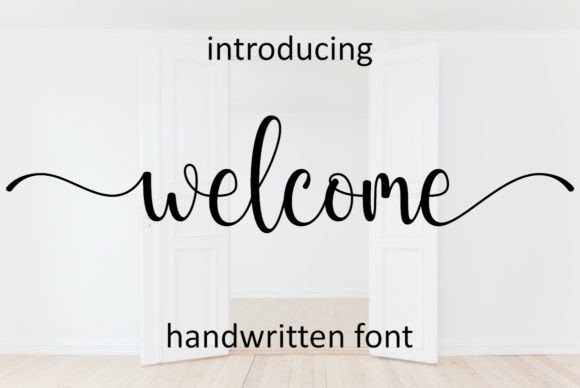
Introducing Welcome Font, the perfect choice for anyone looking for a stylish and elegant handwritten font. Created by Hardiboy Design, this font family is a must-have for those who want to add a touch of sophistication to their designs.
With its stunning script style, Welcome Font is ideal for a wide range of design projects, including wedding invitations, thank you cards, quotes, greeting cards, logos, and business cards. Its unique look and feel will make your designs stand out and captivate your audience.
But that's not all. Welcome Font is also PUA encoded, which means you can easily access all of the glyphs and alternates. This feature makes it incredibly versatile and perfect for any project.
Whether you're a designer, marketer, or blogger, Welcome Font will help you create stunning and engaging designs that will grab the attention of your audience. Its stylish and elegant look will convey a sense of luxury and sophistication that will elevate your brand and message.